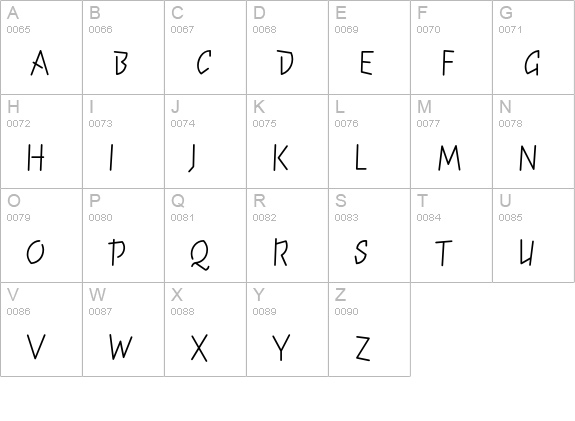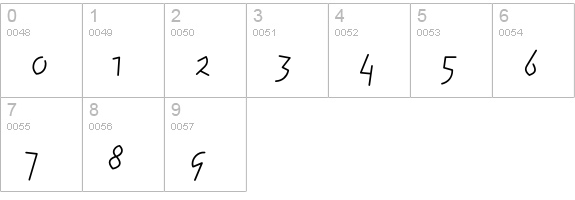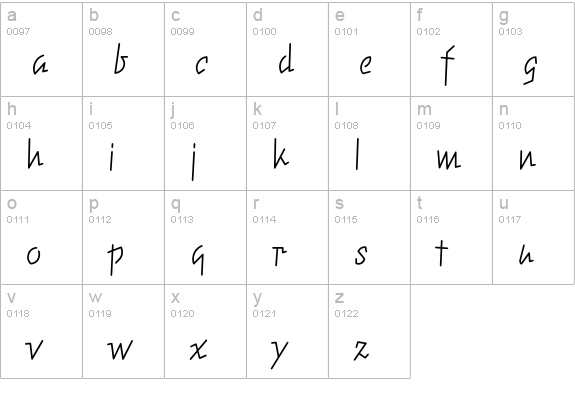
ElektrixLightOldstyle Font Details
ElektrixLightOldstyle Font is a stunning typeface that exudes elegance and sophistication. With its classic and timeless design, this font is perfect for various design projects, from branding to editorial layouts. Its clean lines and balanced proportions make it a versatile choice for both print and digital applications. What sets ElektrixLightOldstyle Font apart is not only its beautiful aesthetic but also the fact that it is available for free download at FontsMarket.com. This means that designers and creatives can easily access and use this high-quality font without any cost, making it a valuable addition to their font library. Whether you're working on a logo design, website layout, or any other creative project, ElektrixLightOldstyle Font is sure to make a statement with its timeless appeal. Download it for free today and elevate your designs with this exquisite typeface.